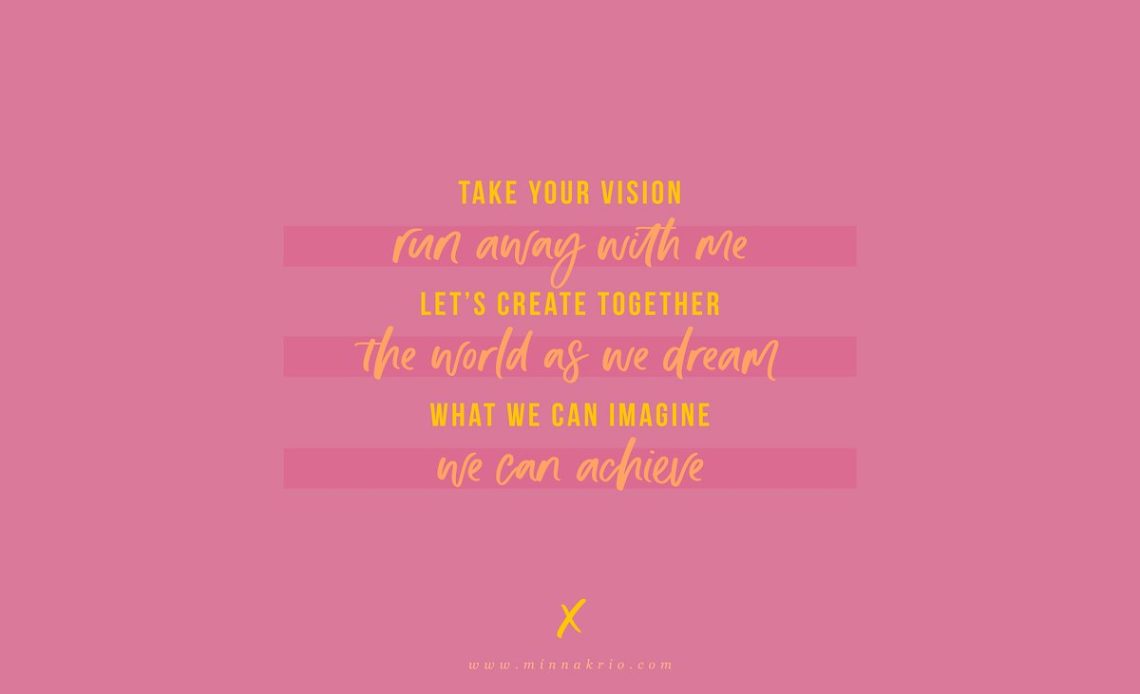
Welcome to Awesomespill, the ultimate script font family created by Minna Kaario, perfect for anyone looking for a lively, fun, and juicy handwritten brush script that's ideal for logos, headings, product packaging, merchandise, quotes, and more. This font has been crafted with great care, love, and attention to detail, ensuring that it delivers an authentic hand-lettered feel.
What sets Awesomespill apart from other fonts is its full set of lowercase alternates and 21 ligatures that provide endless design possibilities, giving you plenty of variety to choose from. With its OpenType support, you can easily access everything in the main font as you type. And, for those who don't have OpenType software, the font also comes with the Alternates and Ligatures as separate fonts for use.
This hand-lettered font is the perfect addition to any project, and it's versatile enough to suit any design style. Awesomespill is the best font for small print web and is a must-have for anyone who wants to elevate their design game.